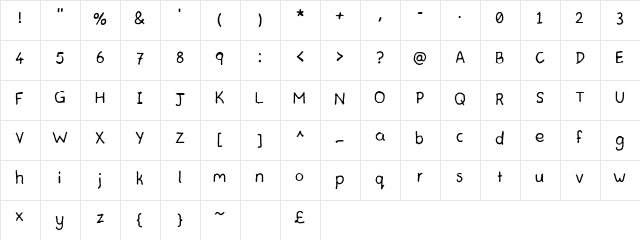
Teachers Student Regular
| Foundry | Brixdee |
| Designer | Francis Fonye |
Design Context for Teachers Student Typeface
Teachers Student offers clean, dependable letterforms without strong stylistic allegiance, making it a practical choice for designers who need flexibility.